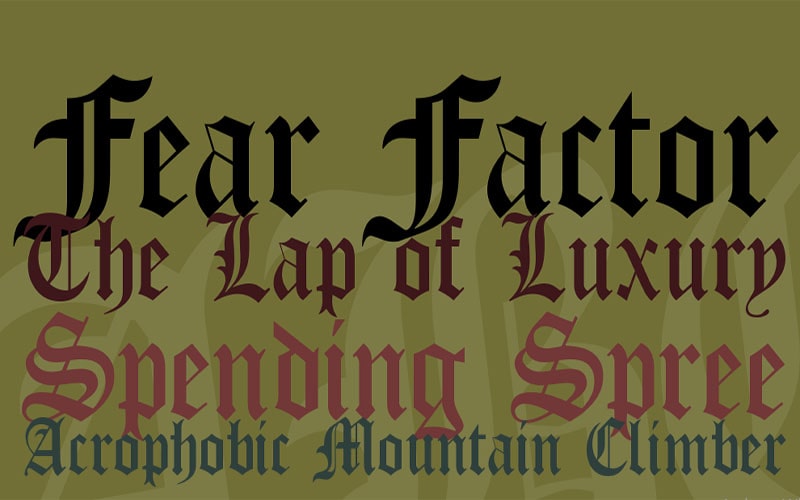
Old London Font is a typeface that brings the grandeur and mystique of medieval Gothic lettering into modern design. It was designed by Dieter Steffmann, a prolific type designer known for his extensive collection of historically inspired typefaces.
Steffmann’s work often focuses on capturing the essence of various historical periods, and Old London is no exception, reflecting the ornate elegance of Gothic script.
This font is perfect for projects that require a historical, vintage, or fantasy aesthetic, evoking the atmosphere of ancient manuscripts and old-world charm.
It contains a single, highly stylized font style. It features intricate, ornate letterforms with a strong Gothic influence, making it ideal for creating a dramatic and timeless look.
Old London Font
The character set is designed to maintain the Gothic style, with elaborate and decorative letterforms that enhance its historical appeal. It is available in Truetypeface format.
Old London Font is ideal for a variety of design applications, including Historical and fantasy-themed projects, Book covers, titles for genres like fantasy and historical fiction, Posters, and flyers with a vintage or Gothic aesthetic.